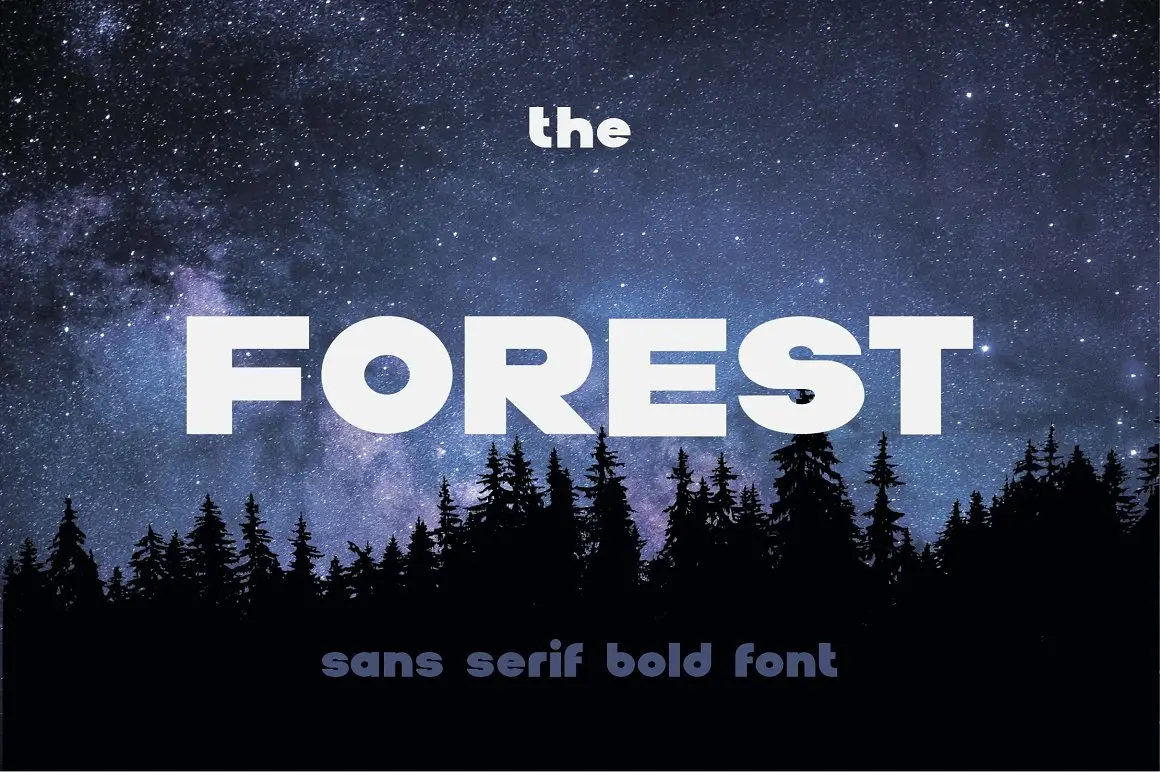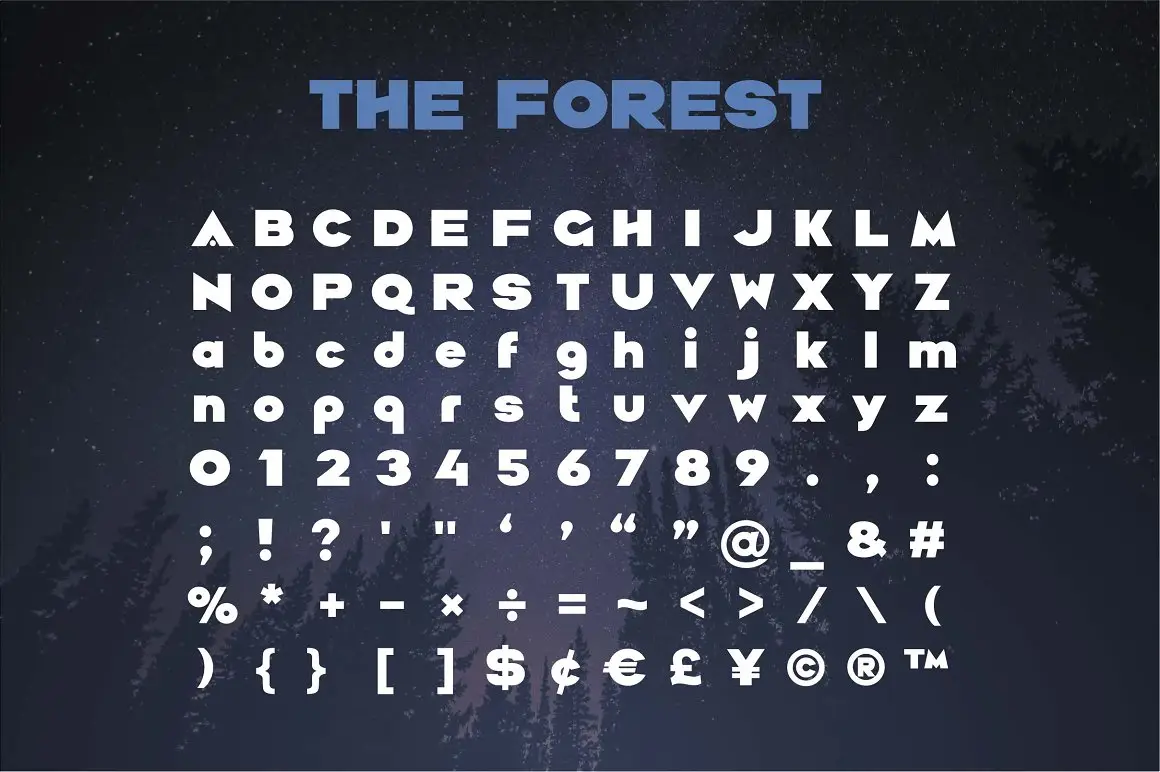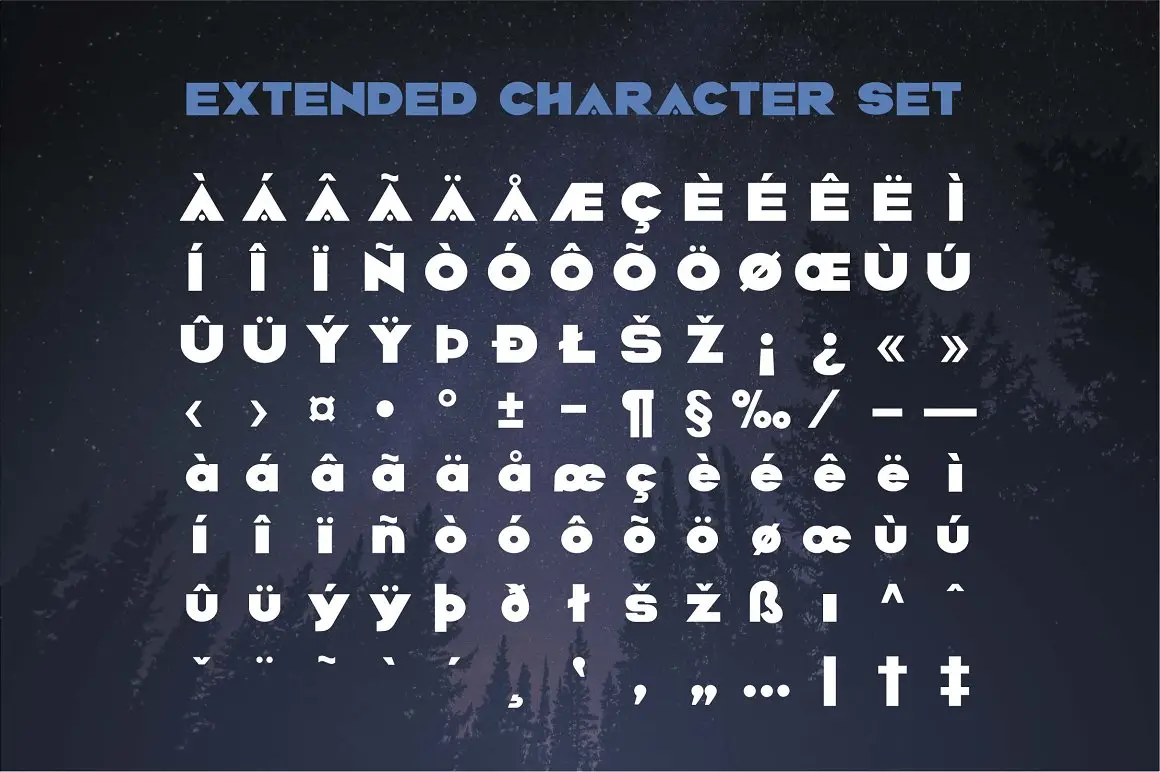
The Forest Sans Serif Bold Otf Font
The Forest Sans Serif Bold is a modern and versatile font designed to elevate your design projects. With its clean lines and bold weight, this font is perfect for creating impactful branding, eye-catching logos, and engaging web content.
• Style: Sans Serif
• Weight: Bold
• Ideal for print materials such as brochures and posters.
• Great for digital applications including websites and social media graphics.
• Utilize in user interfaces for a clean and modern look.